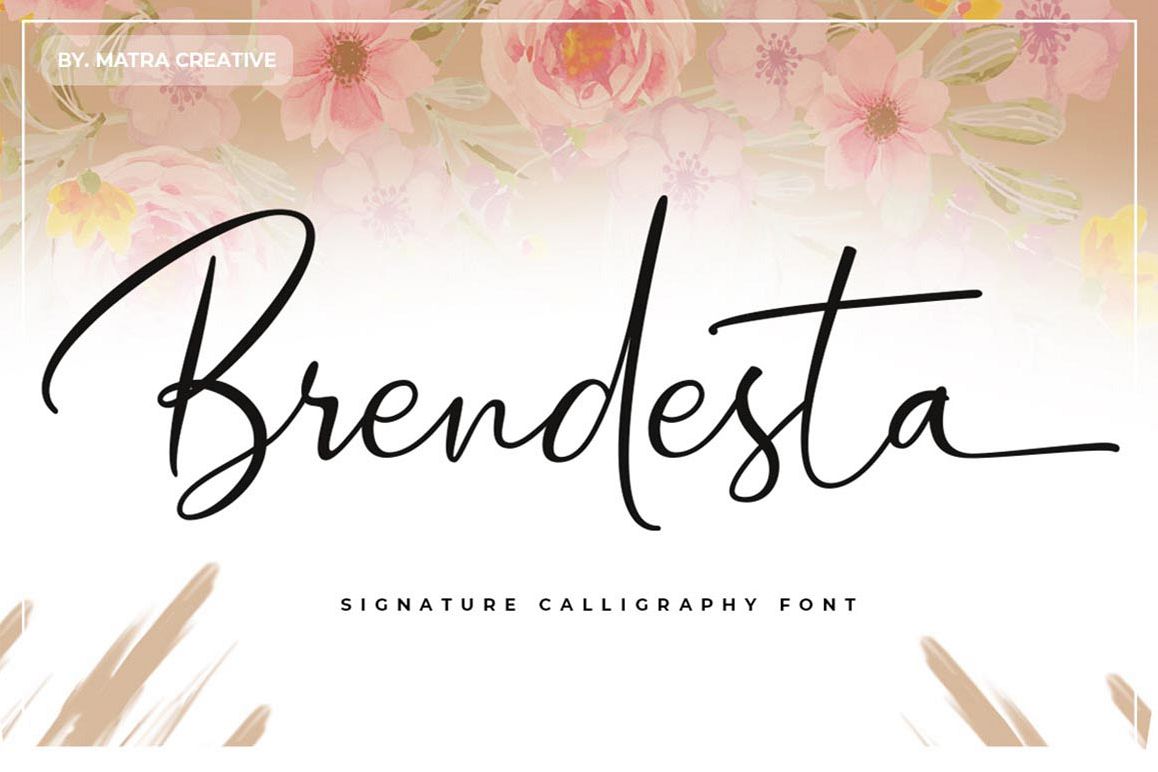
Brendesta
The Signature Brendesta Signature Font is a distinctive decorative font with which you can achieve a feeling of handwriting. This type of handwriting can be used on social media content, for branding or packaging.
Also, Brendesta is the ideal type of letter for branding and packaging of organic products. In addition, you can use Brendesta design wedding invitations.